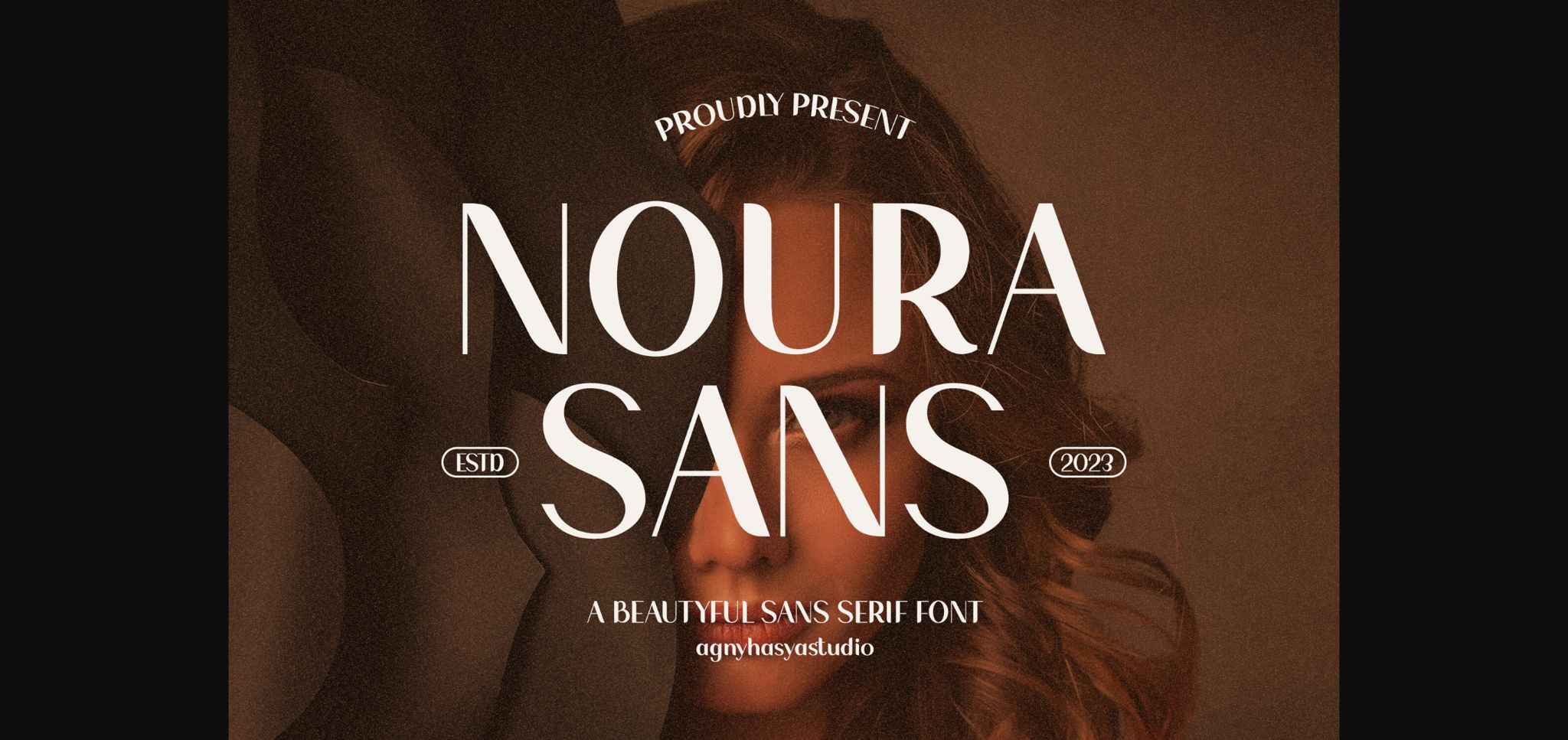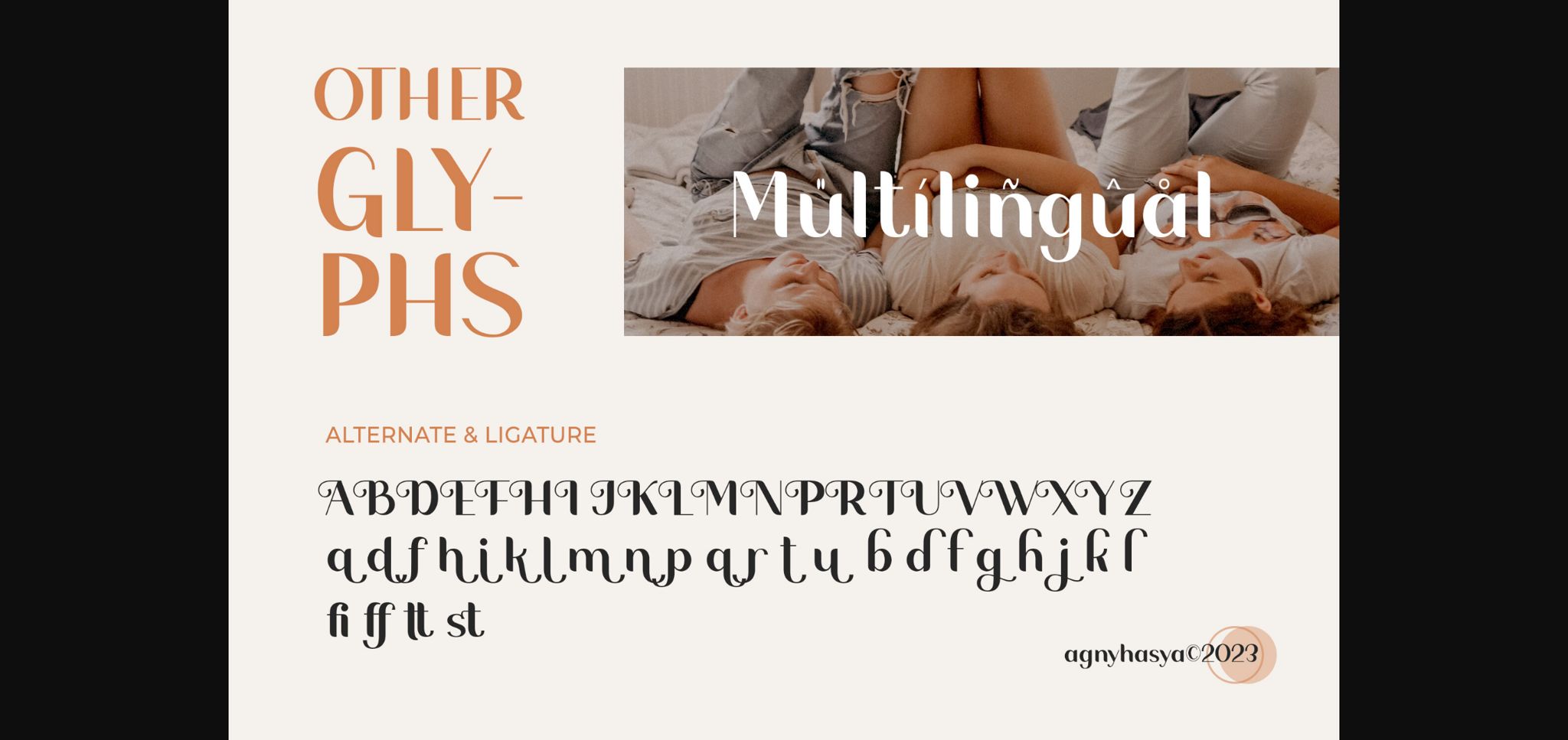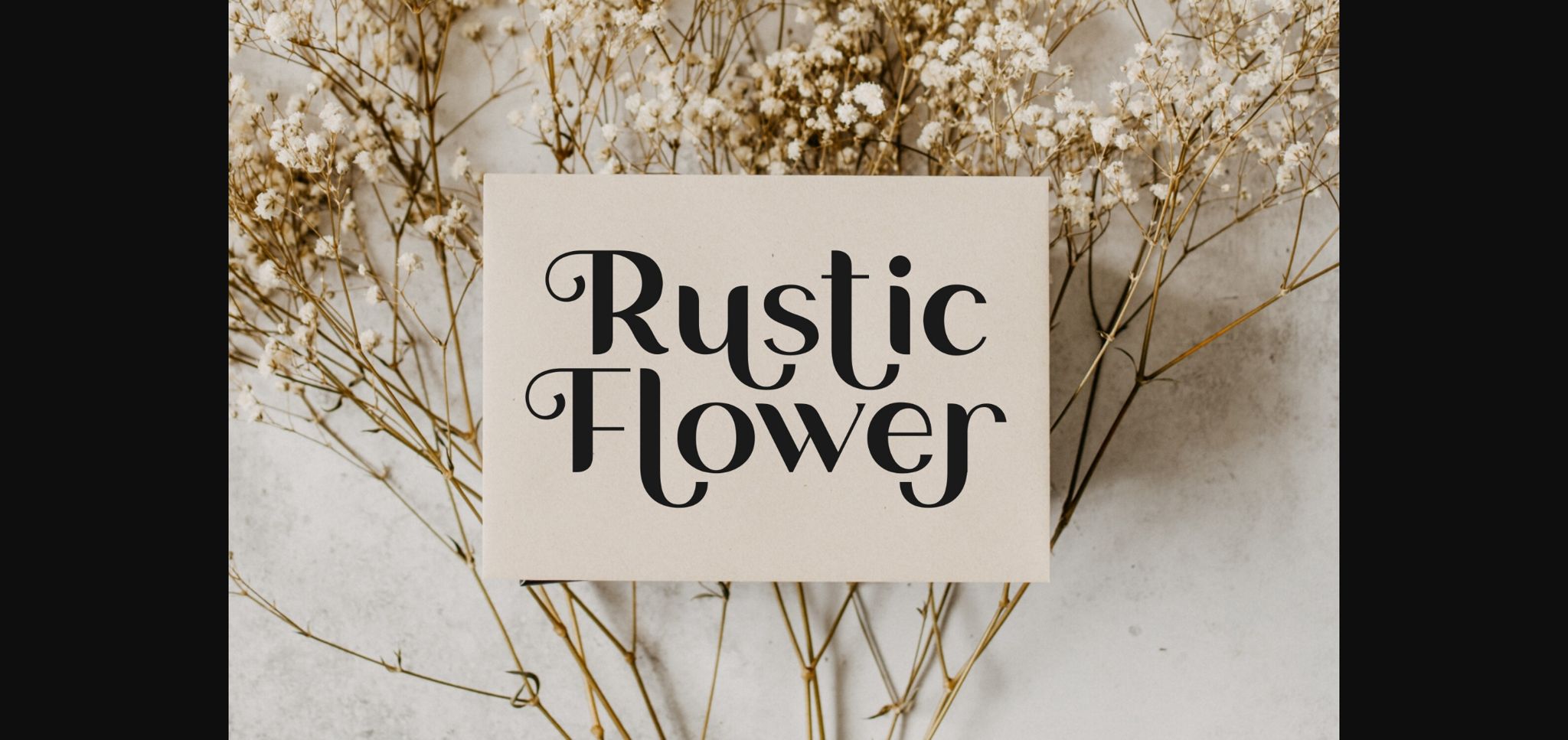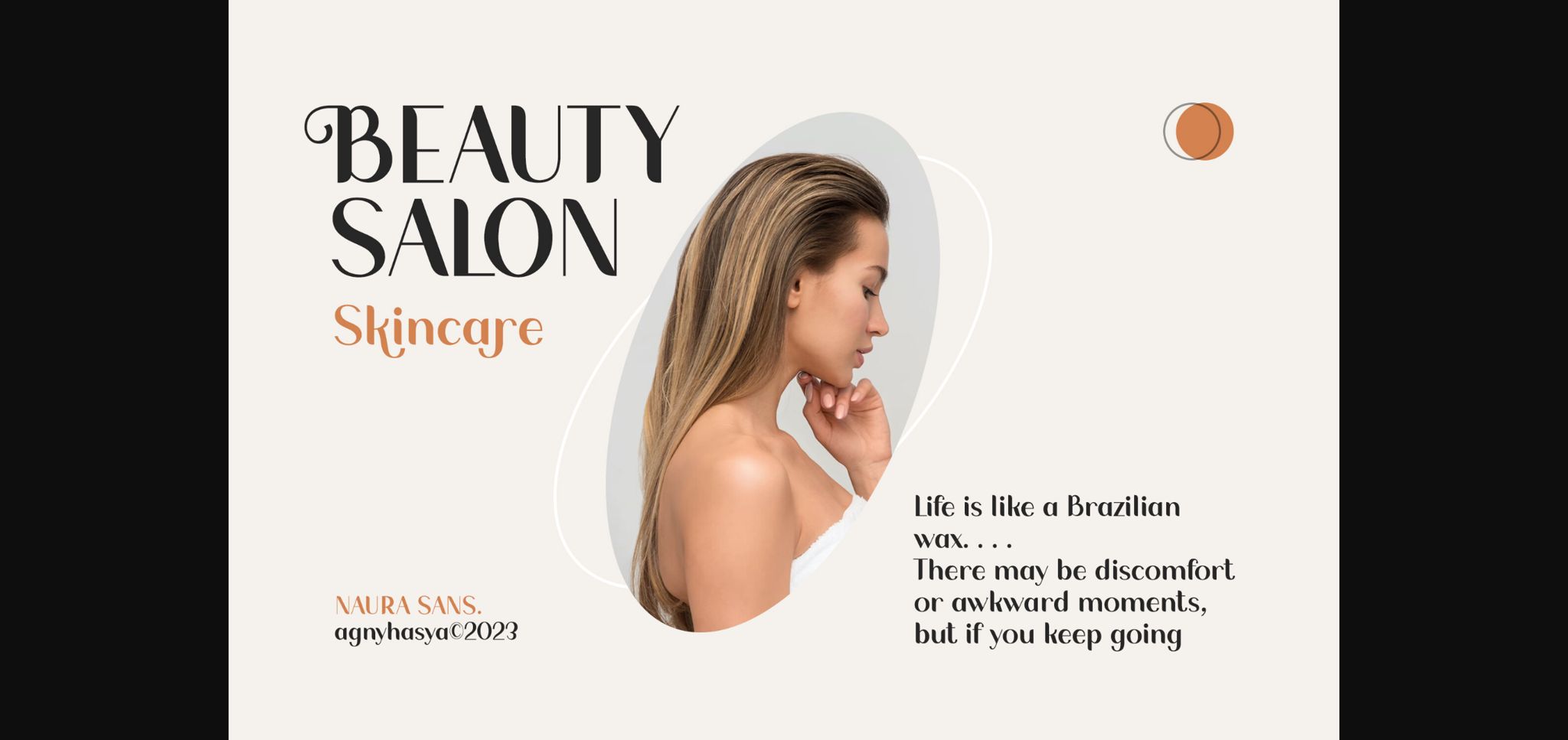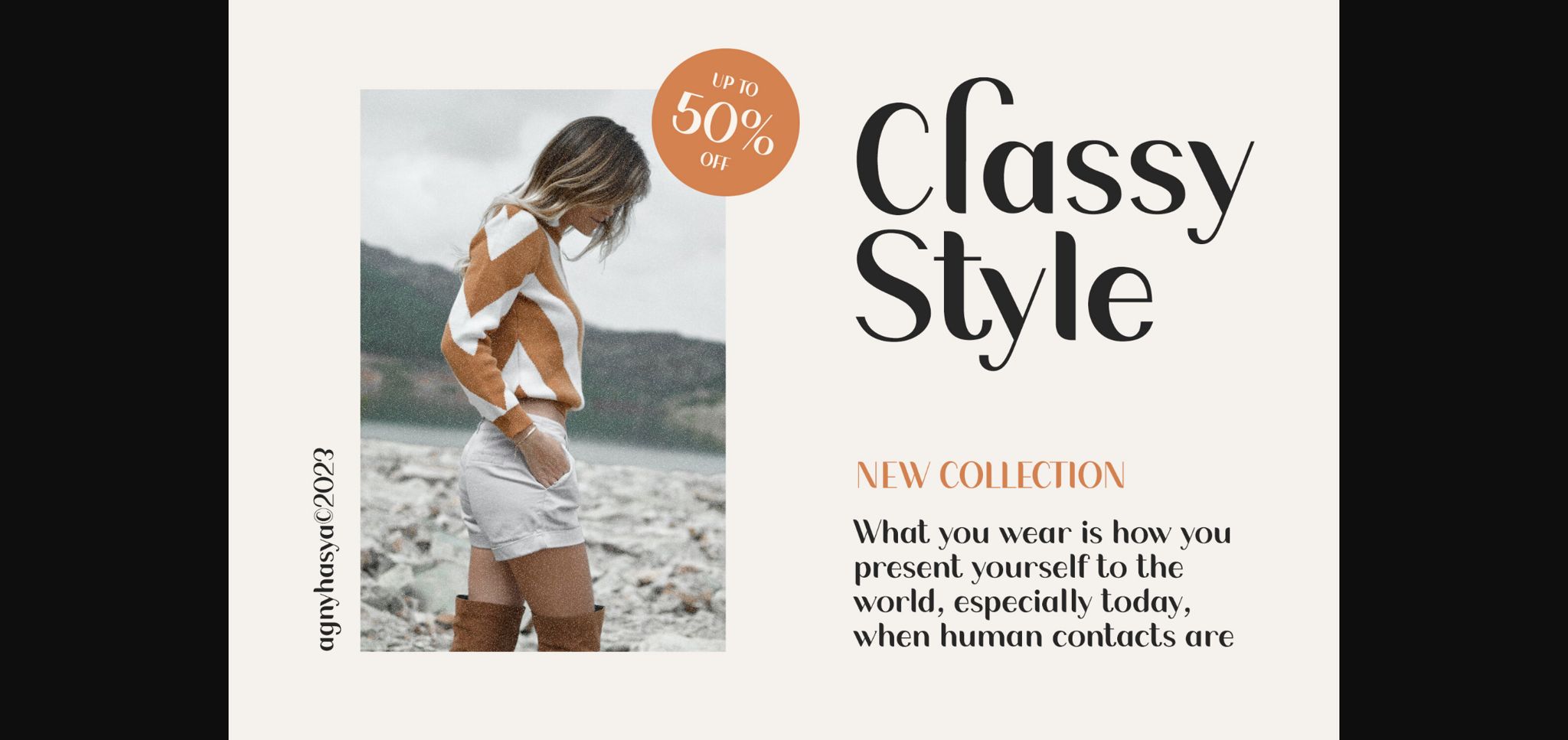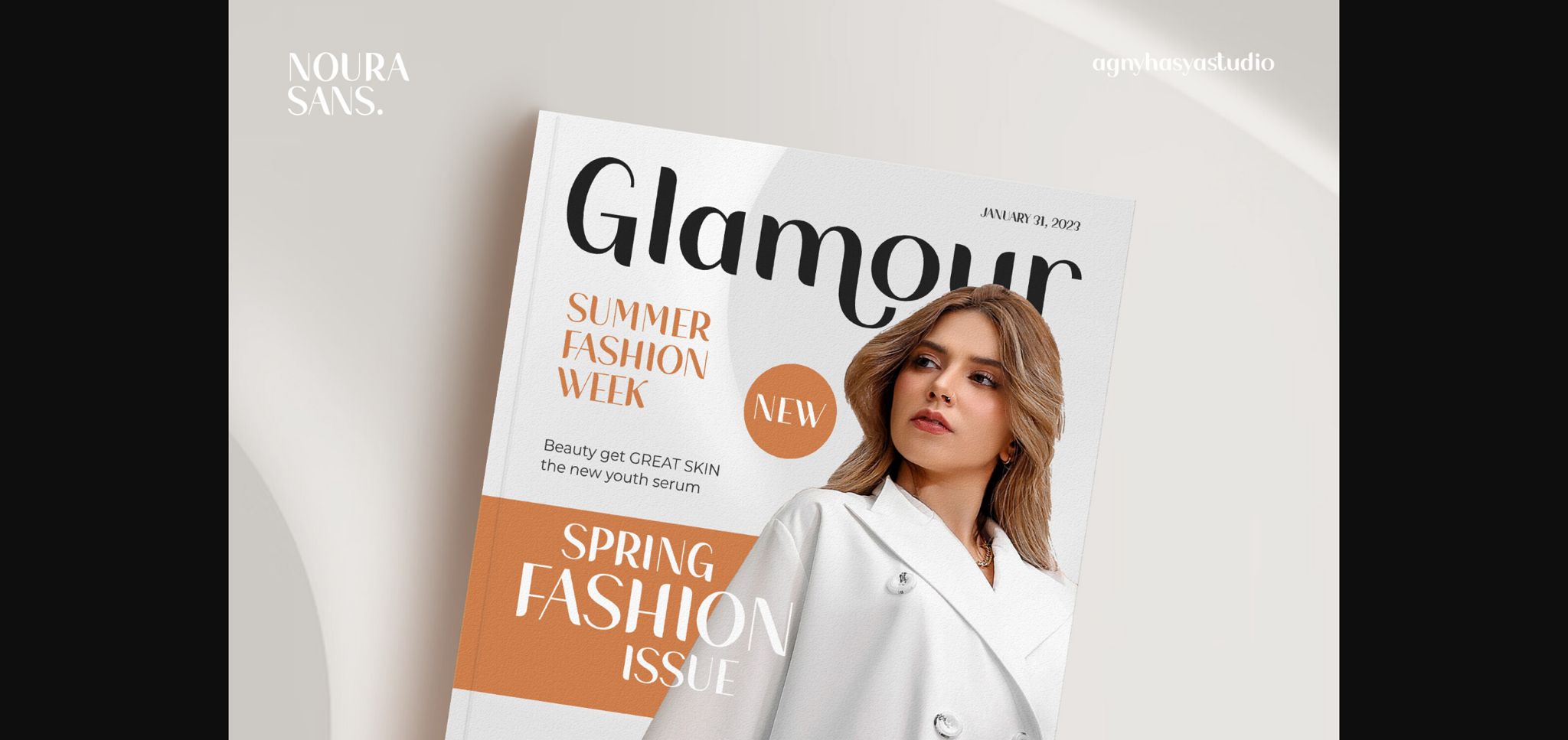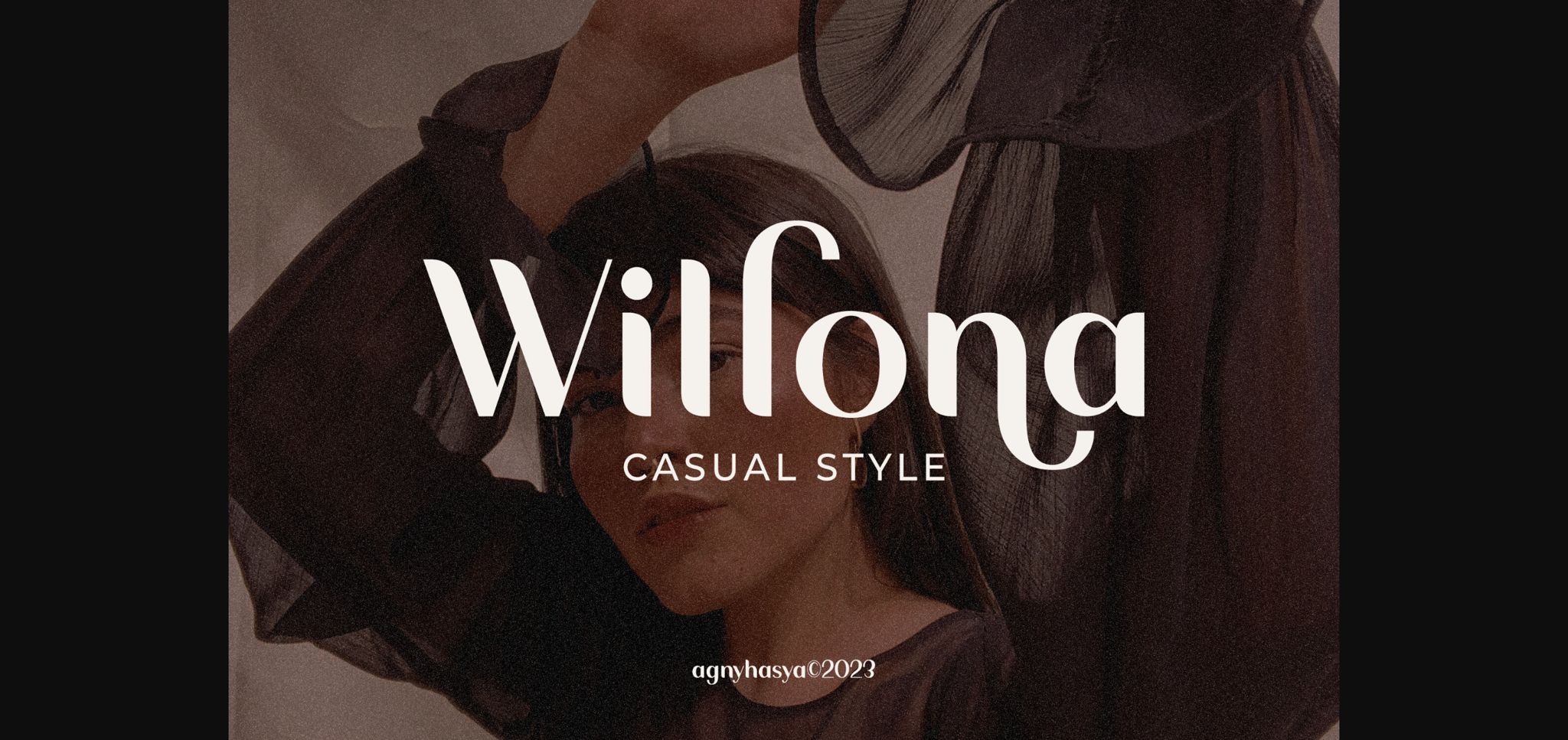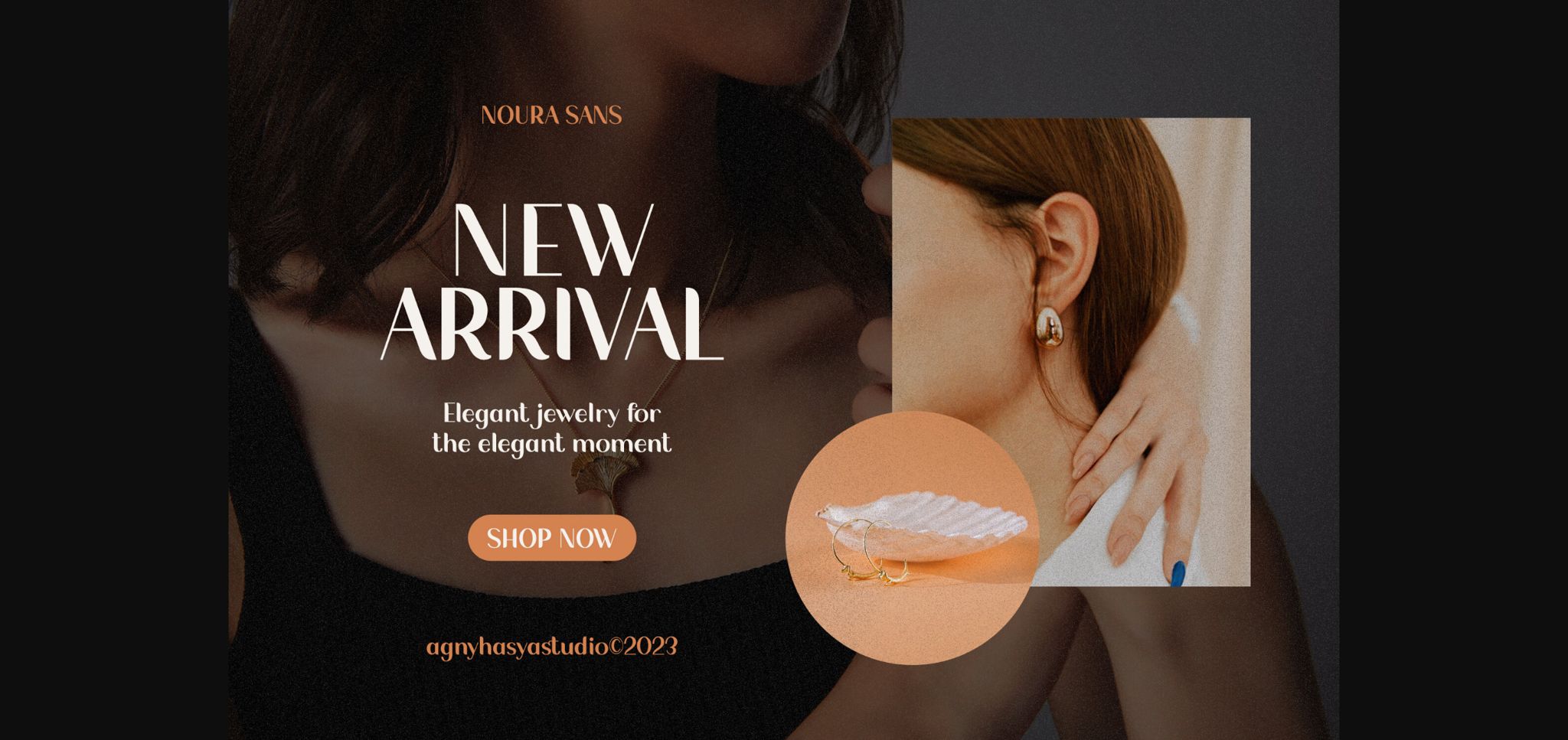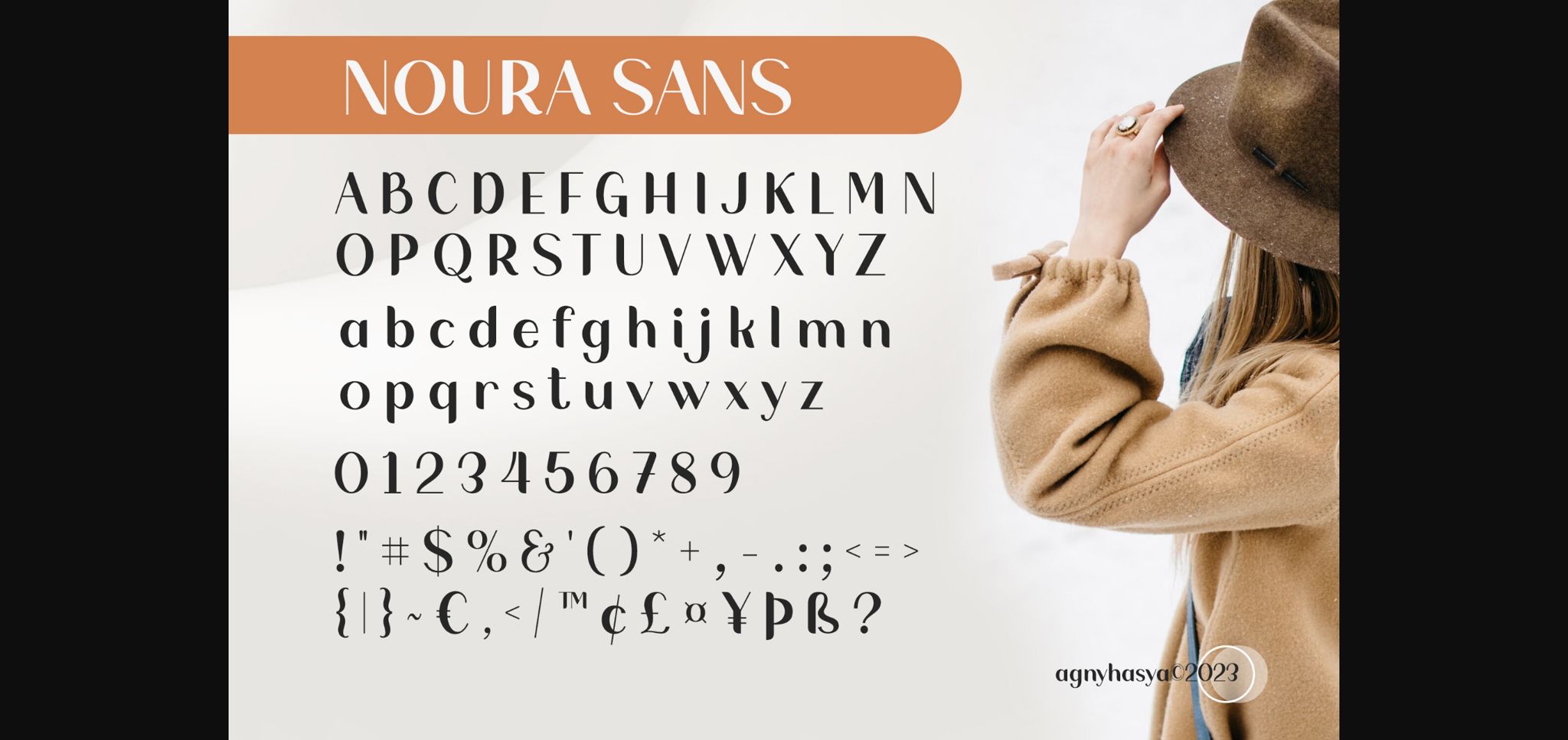
Noura Sans Font
About Noura Sans Font
**Noura** is a Beauty and Elegant Sans Serif Font created with glyph variations like alternates and ligatures.
Perfect for your design projects like logos, branding, advertising, product designs, stationery, magazine designs, book/cover title designs, photography, art quotes, wedding designs, fashion designs, special events, labels, product packaging, and more.